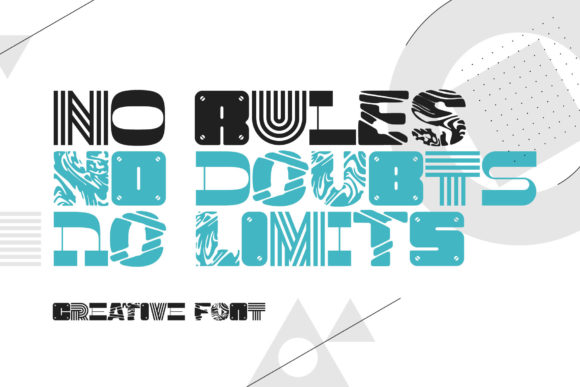
Ignite your imagination and step into a world of boundless creativity with No Rules Font, a captivating decorative font family that's ready to unleash your inner artist. Crafted by the visionary Gleb Guralnyk, this font is an untamed force of nature, bursting with wild and untamed beauty.
No Rules Font is a mesmerizing symphony of bold strokes, sweeping curves, and organic textures, mirroring the untamed elegance of the untamed jungle. This font will elevate your designs to breathtaking heights, whether you're creating eye-catching logos, enchanting invitations, or captivating social media graphics.
No matter the project, No Rules Font will effortlessly transform your words into works of art. Its bold and confident character adds a touch of drama and personality to headlines, while its intricate details bring depth and texture to body copy. Imagine the impact your creations will make as they come to life, captivating your audience with their raw and untamed beauty.
With No Rules Font, every project becomes an opportunity for self-expression and artistic exploration. Let your imagination run wild as you explore the endless possibilities of this font family. Dive into the untamed beauty of the jungle and let your creativity thrive.
Don't settle for ordinary fonts that blend into the background. Embrace the untamed spirit of No Rules Font and watch as your designs take on a life of their own. This font is your passport to a world of endless creativity, where boundaries are shattered, and individuality reigns supreme.